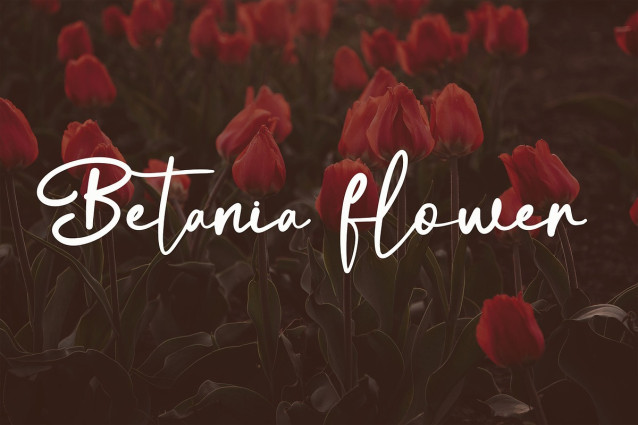
Antellove Script Font
Antellove Script Font, a charming script font that embodies a feminine style. Designed with unique and beautifully crafted characters, Antellove enhances the visual appeal of any project, making it perfect for adding a touch of elegance to your designs.